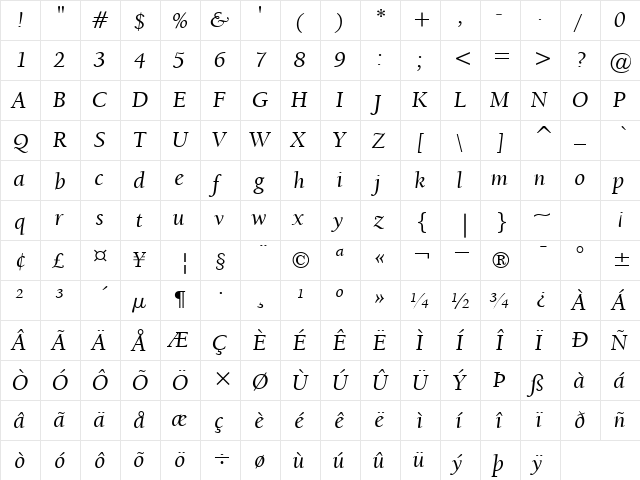
ITCBerkeleyOldstyle-Medium MediumItalic Font Preview
ITCBerkeleyOldstyle-Medium MediumItalic
Design Context for ITCBerkeleyOldstyle-Medium Typeface
ITCBerkeleyOldstyle-Medium carries the refined structure of traditional serif typography, with bracketed terminals and considered proportions that communicate credibility and craft. The dynamic lean of this cut emphasises speed and emphasis in any layout.